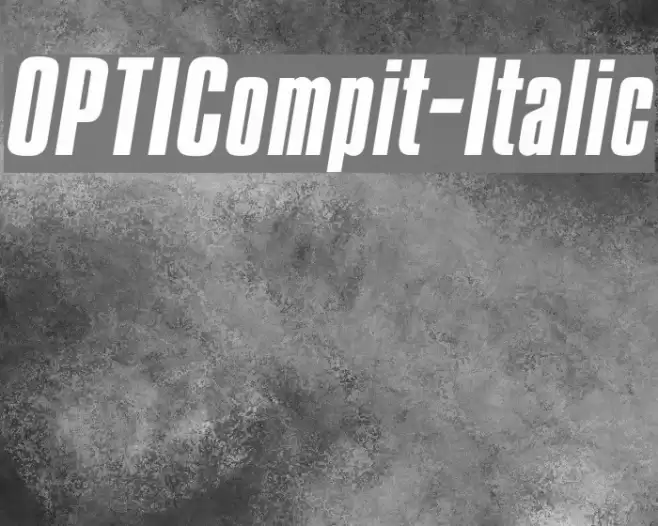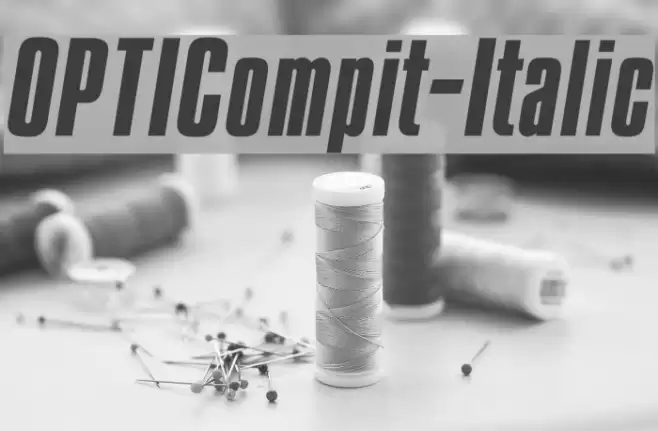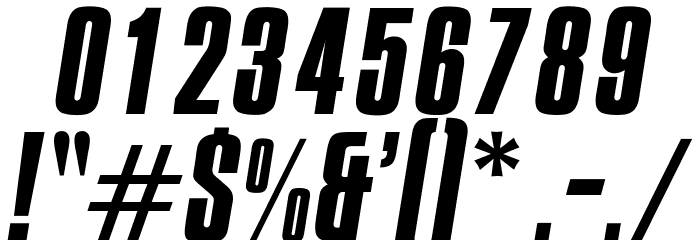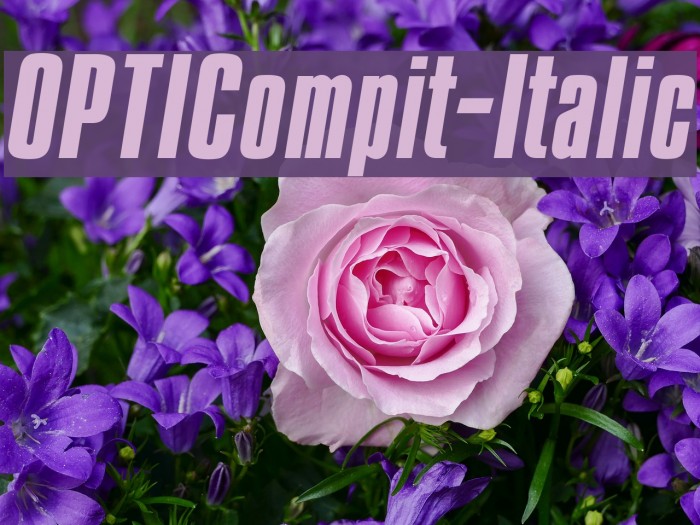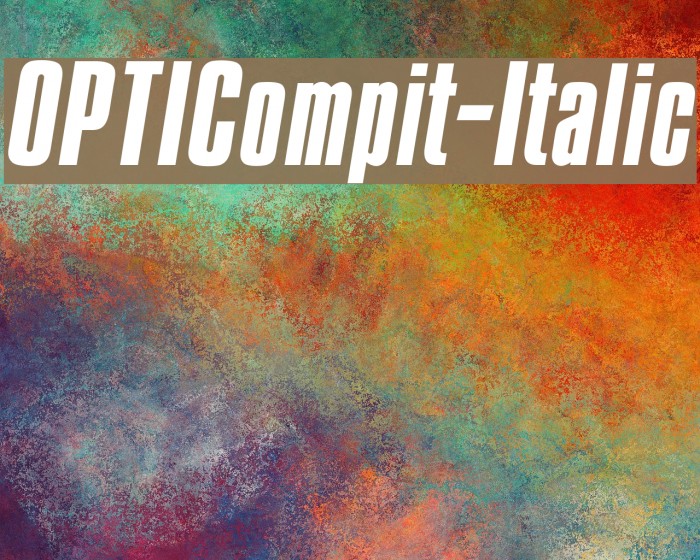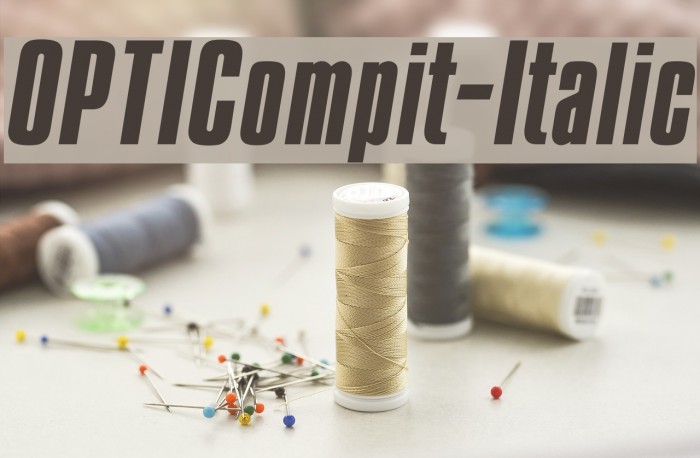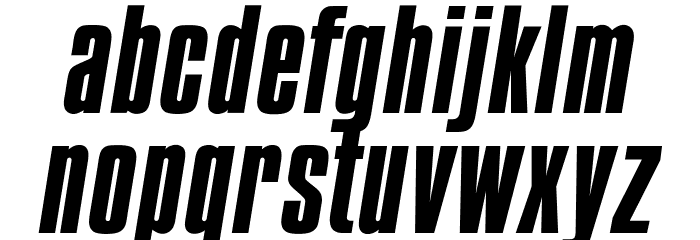
OPTICompit-Italic Font
OPTICompit-Italic Description
This font exhibits a bold and dynamic style with a strong italic slant, giving it a sense of motion and urgency. The characters are tightly spaced, enhancing its compact and impactful appearance. The uppercase and lowercase letters maintain a consistent weight, contributing to a uniform look across the typeface. The numbers and special characters are designed to match the boldness of the letters, ensuring a cohesive visual experience. The overall design is modern and assertive, making it suitable for attention-grabbing headlines and branding materials.
A bold, italic font with tight spacing and a modern, dynamic style from Uncategorized fonts.
- Proposed Projects: Ideal for sports branding, dynamic posters, and impactful headlines.
- Character Spacing: Tight